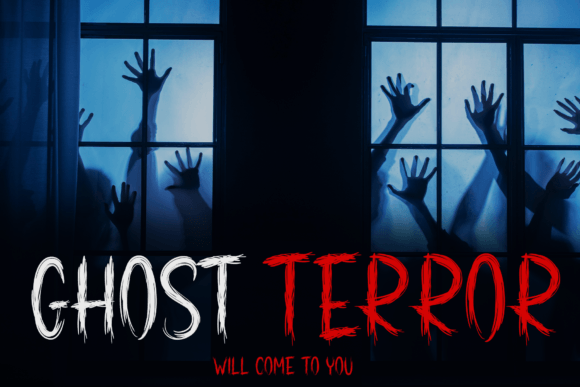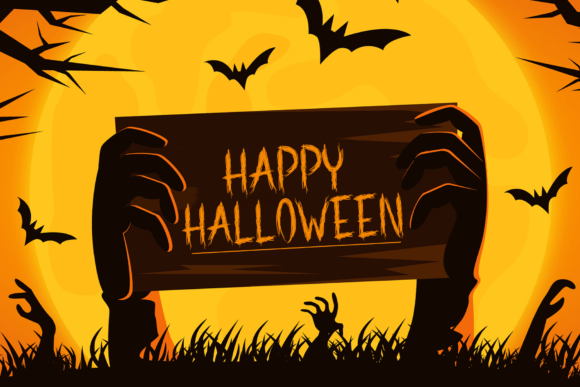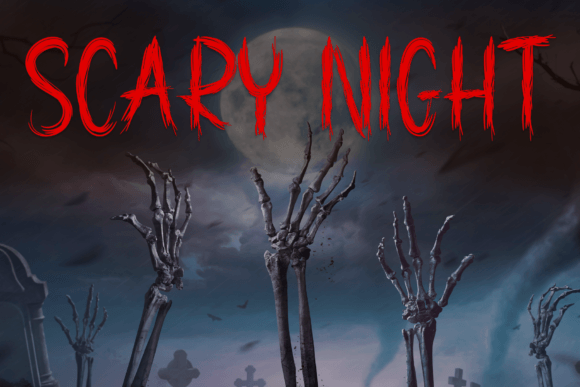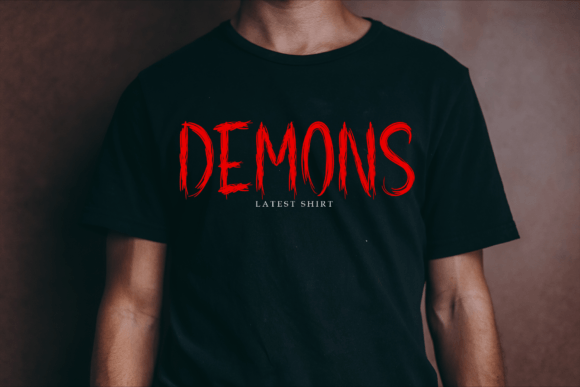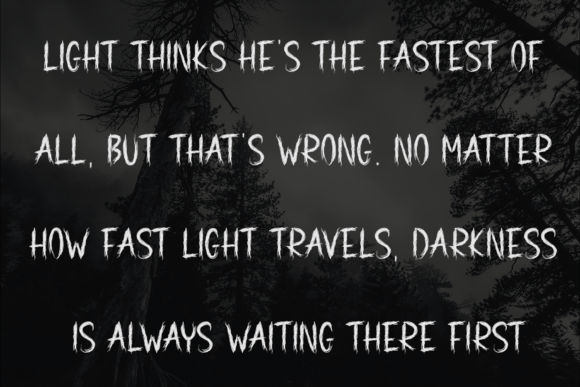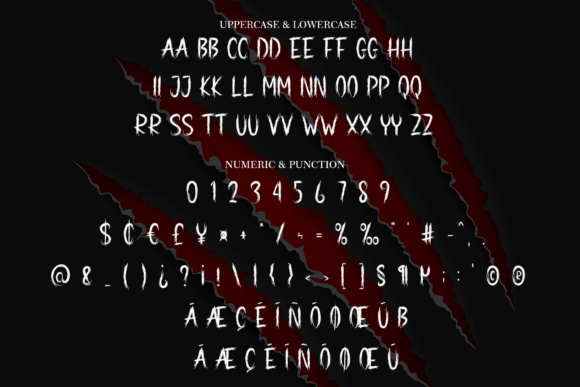
Unleash Your Creativity with Claws Out Font: The Purrfect Addition to Your Design Arsenal
Are you tired of using the same old fonts in your designs? Look no further! Introducing Claws Out, a bold and themed display font that’s sure to add a fun touch to your creations. In this article, we’ll dive into the world of Claws Out and explore its features, uses, and benefits for designers and crafters.
What is Claws Out Font?
Claws Out is a bold and themed display font that’s designed to bring a smile to your face. This cute and fun font is ideal for writing posters, movie titles, cards, banners, or any other design that might need a playful touch. With its unique and eye-catching style, Claws Out is sure to make your designs stand out from the crowd.
Key Features of Claws Out Font
- Bold and Themed: Claws Out is a bold and themed font that’s designed to make a statement. Its unique style is perfect for creating eye-catching designs that grab attention.
- Cute and Fun: This font is not just bold, but also cute and fun. It’s perfect for designs that require a playful touch, such as children’s party invitations or cartoon-themed posters.
- Display Font: Claws Out is a display font, which means it’s designed to be used in large sizes, making it perfect for titles, headings, and posters.
- Versatile: This font is versatile and can be used in a variety of designs, from digital to print, and from posters to social media graphics.
Uses of Claws Out Font
Claws Out is a versatile font that can be used in a variety of designs, including:
- Posters: Use Claws Out to create eye-catching posters for events, promotions, or announcements.
- Movie Titles: Add a touch of fun and playfulness to your movie titles with Claws Out.
- Cards: Use Claws Out to create fun and playful greeting cards for special occasions.
- Banners: Create attention-grabbing banners with Claws Out for events, sales, or promotions.
- Social Media Graphics: Use Claws Out to create fun and engaging social media graphics that stand out from the crowd.
Benefits of Using Claws Out Font
So, why should you use Claws Out in your designs? Here are some benefits:
- Adds a Fun Touch: Claws Out adds a fun and playful touch to your designs, making them more engaging and attention-grabbing.
- Unique Style: This font has a unique style that’s sure to make your designs stand out from the crowd.
- Easy to Read: Despite its bold and playful style, Claws Out is easy to read, making it perfect for use in titles, headings, and posters.
- Versatile: Claws Out is a versatile font that can be used in a variety of designs, from digital to print.
Tips for Using Claws Out Font
Here are some tips for using Claws Out in your designs:
- Use in Large Sizes: Claws Out is a display font, so it’s best used in large sizes to make a statement.
- Pair with Other Fonts: Pair Claws Out with other fonts to create a unique and interesting contrast.
- Experiment with Colors: Experiment with different colors to find the perfect combination that matches your brand or design.
- Have Fun: Most importantly, have fun with Claws Out! This font is designed to be playful and fun, so don’t be afraid to get creative.
In conclusion, Claws Out is a bold and themed display font that’s perfect for adding a fun touch to your designs. With its unique style, versatility, and ease of use, Claws Out is sure to become a staple in your design arsenal. So, why not give it a try and see how it can elevate your designs to the next level?